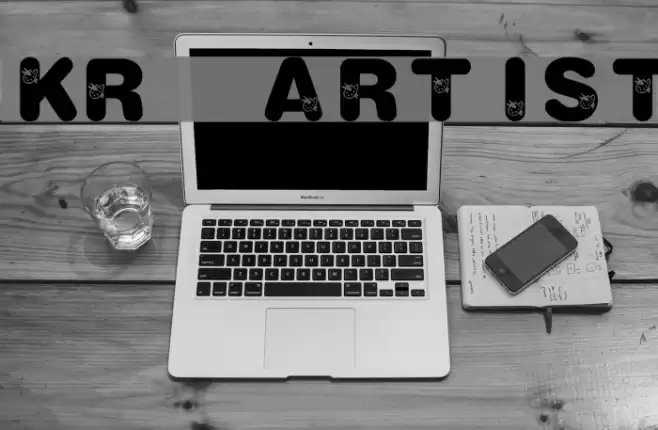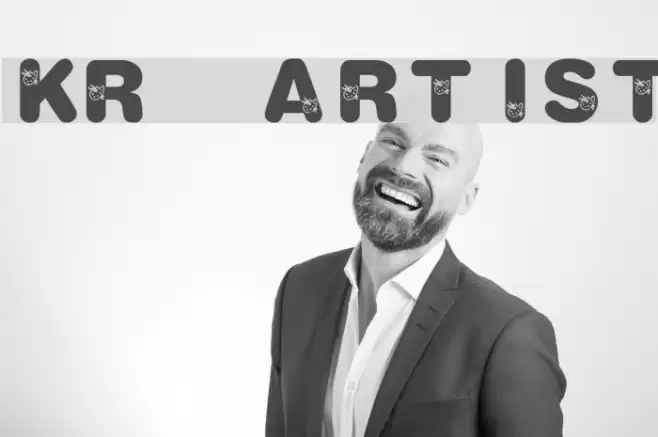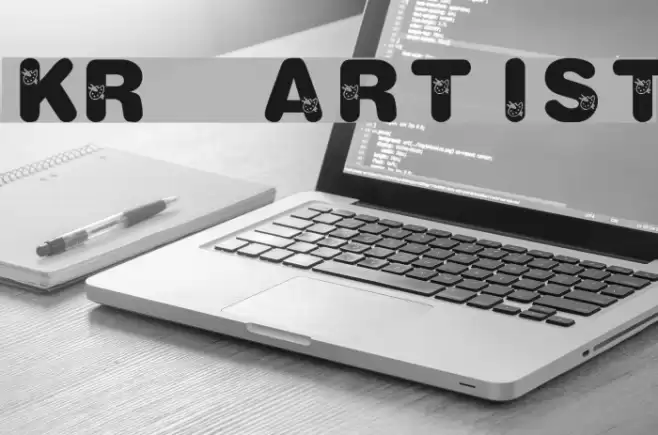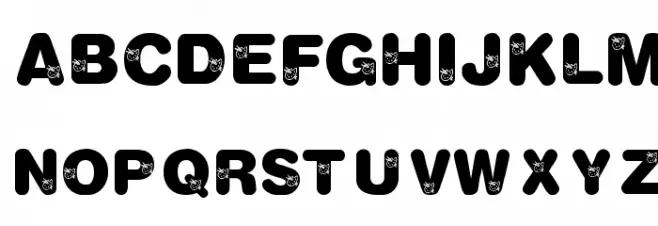
KR Artist Font
KR Artist Description
This decorative font features bold, rounded letters with a unique artistic flair. Each character is adorned with intricate, whimsical designs, adding a playful and creative touch. The font maintains a consistent weight throughout, ensuring readability while showcasing its distinctive style. The rounded edges and bold strokes give it a friendly and approachable appearance, making it suitable for various creative projects. The spacing between characters is normal, allowing for clear legibility without compromising the decorative elements. This font is perfect for projects that require a touch of creativity and uniqueness, such as invitations, posters, or branding materials.
A bold, decorative font with whimsical designs on each character from Uncategorized fonts.
- Proposed Projects: Ideal for creative projects like invitations, posters, and branding materials.